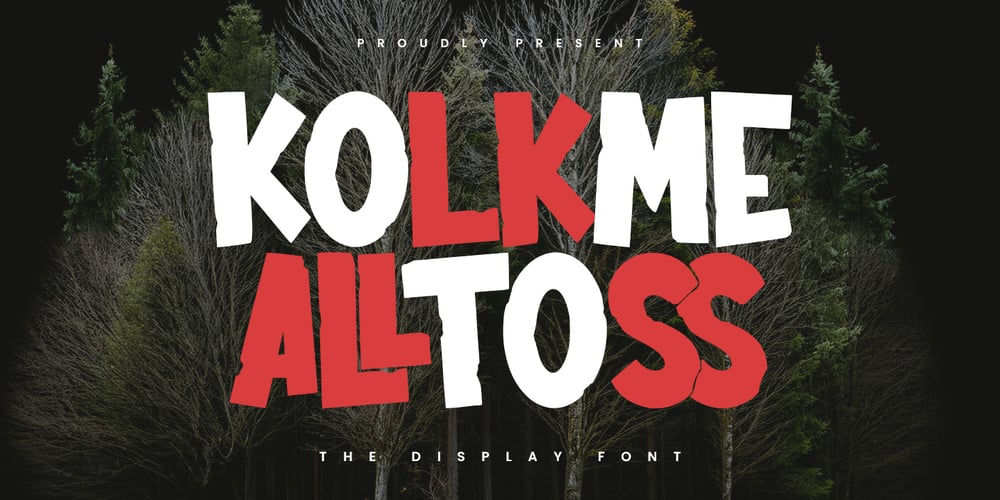
MC Kolkme Alltoss
MC Kolkme Alltoss font
MC Kolkme Alltoss Font Family was designed by Gilang Maulana and published by Maulana Creative. MC Kolkme Alltoss contains 1 styles and family package options. Kolkme Alltoss is a display modern font. With bold tall and hard stroke, fun character with a bit of ligatures. To give you an extra creative work. Kolkme Alltoss font support multilingual more than 100+ language. This font is good for logo design, Social media, Movie Titles, Books Titles, a short text even a long text letter and good for your secondary text font with sans or serif. Make a stunning work with Kolkme Alltoss font.